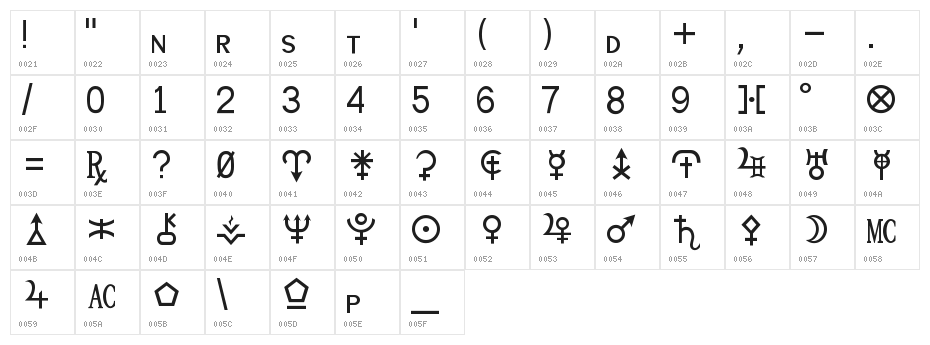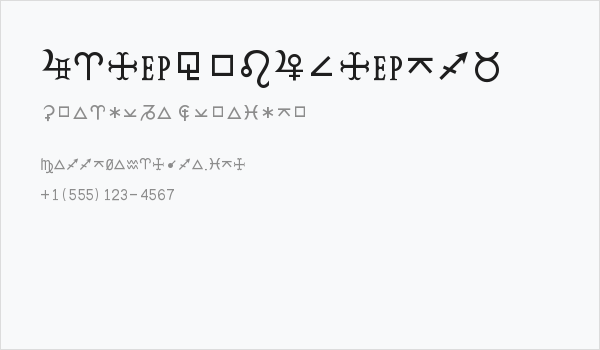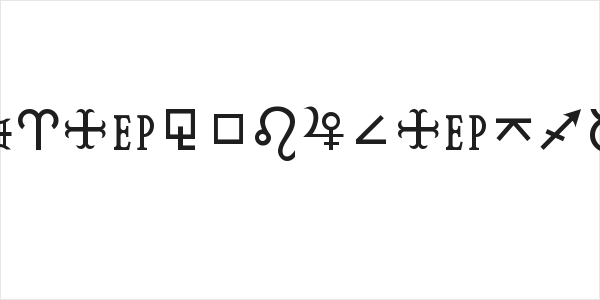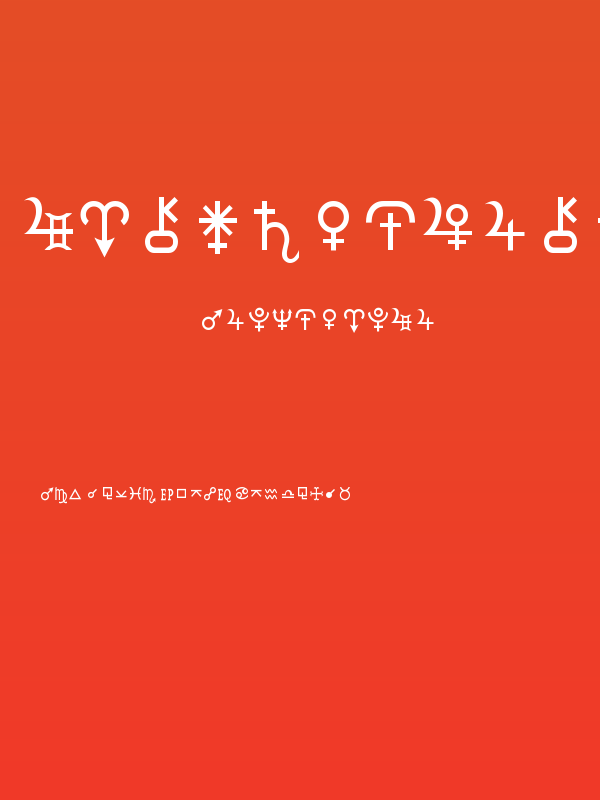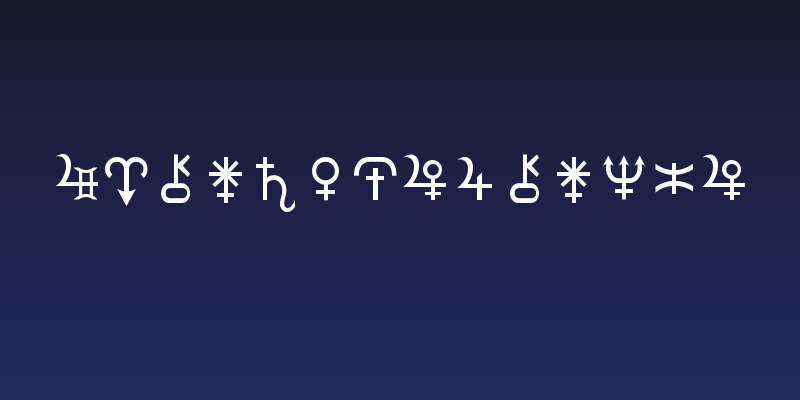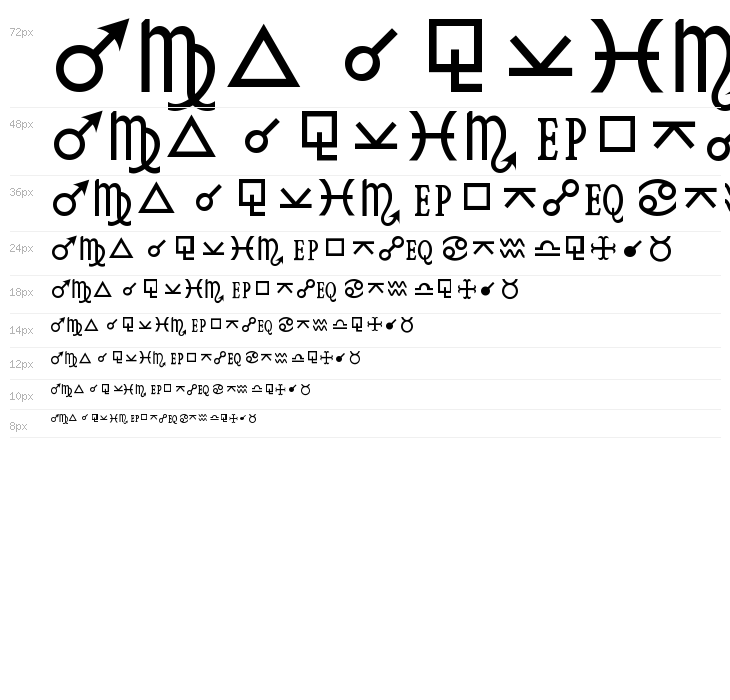
HamburgSymbols Font
HamburgSymbols Description
This font is a collection of unique symbols and characters, each with distinct and intricate designs. The symbols range from astrological and alchemical signs to geometric shapes and abstract forms. The characters are bold and have a consistent stroke width, giving them a strong and impactful appearance. The style is decorative and artistic, making it suitable for creative and thematic projects. The symbols are well-defined, with clear and precise lines, ensuring readability and visual appeal.